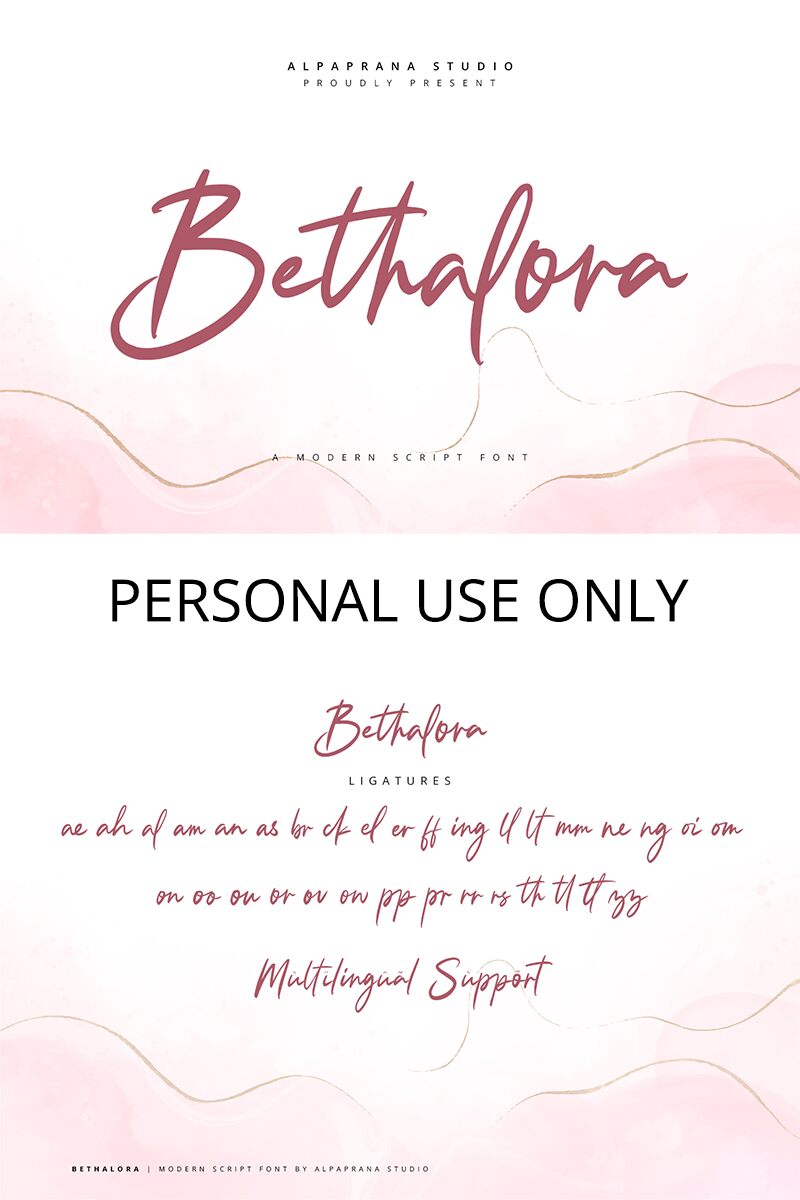
Bethalora
Bethalora, crafted by Alpaprana Studio, exudes a personal touch with its handwritten style that brings the warmth of human touch to digital spaces. Its flowing letters and varying stroke thickness evoke the elegance of traditional calligraphy while maintaining an approachable charm. The font's natural irregularities and fluidity lend authenticity, making it ideal for designs that require a bespoke feel.
In applications, Bethalora shines in contexts that benefit from its intimate and artisanal vibe. From wedding invitations to branding for boutique businesses, this font can convey sophistication without sacrificing the inviting personality inherent in handcrafted work. It's well-suited for projects where a signature element is desired to create a connection with the audience - be it in print or on screen.